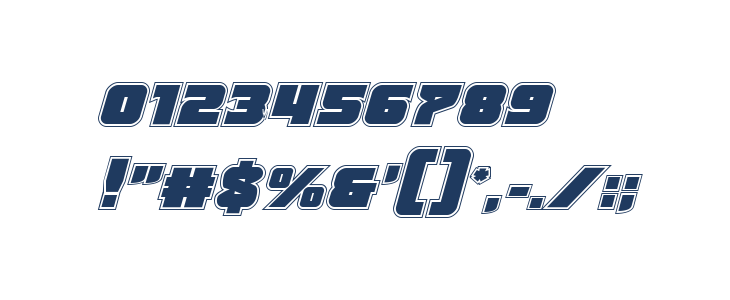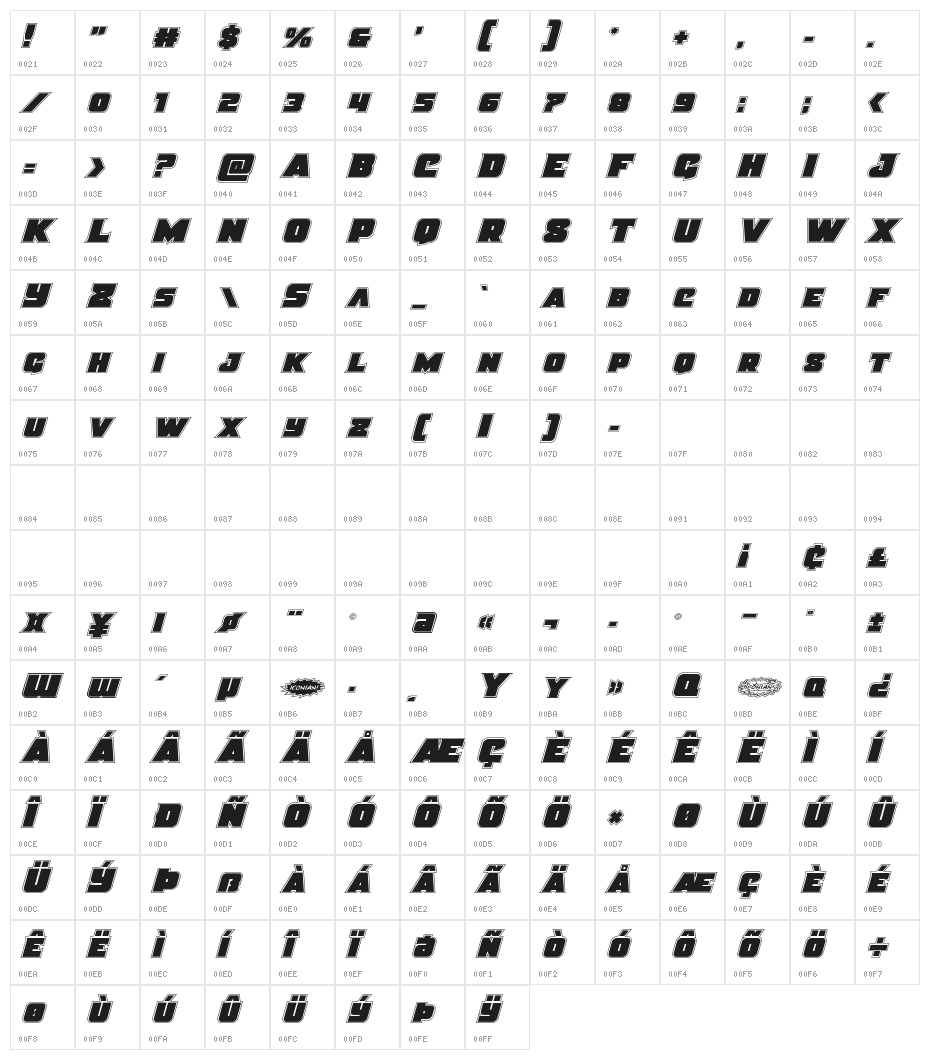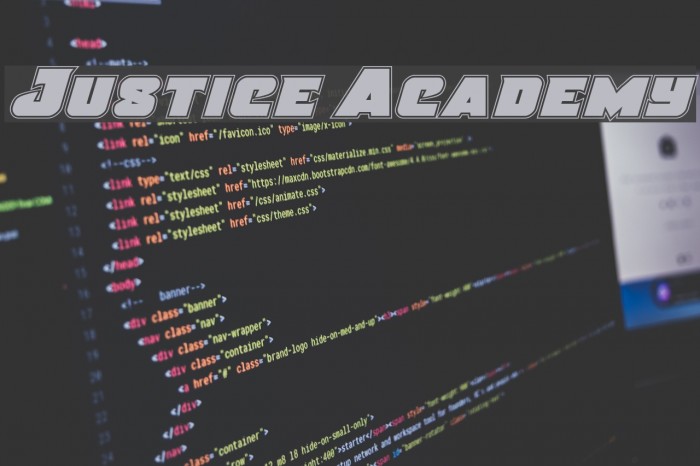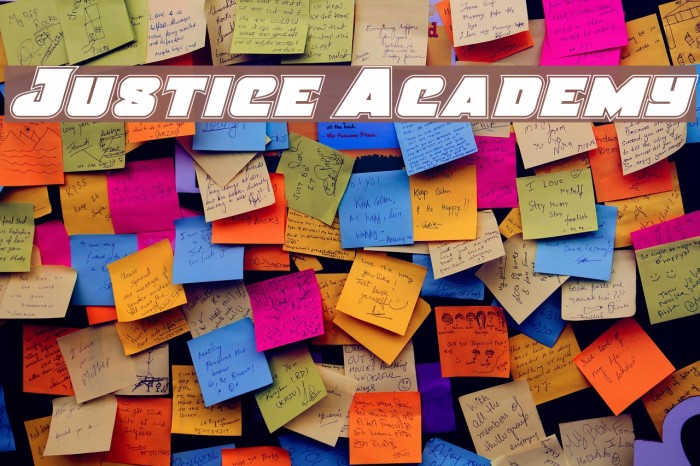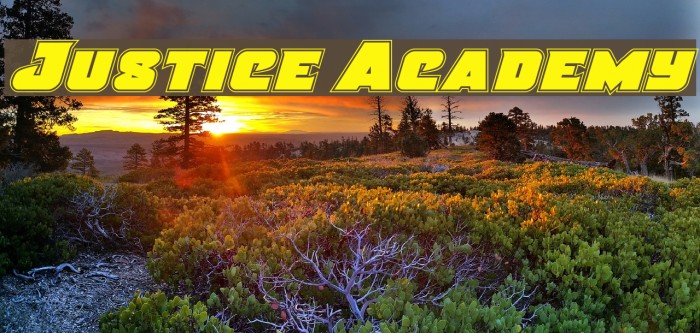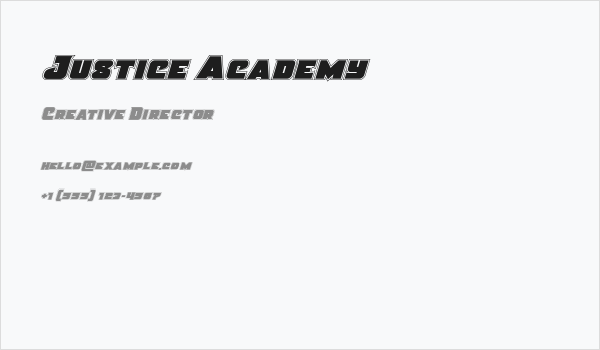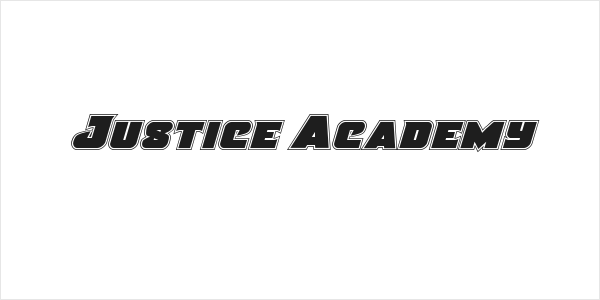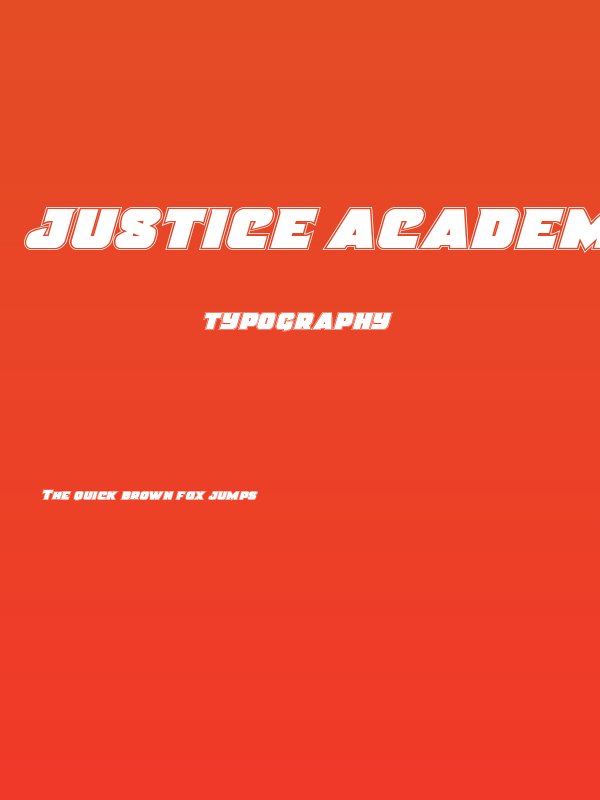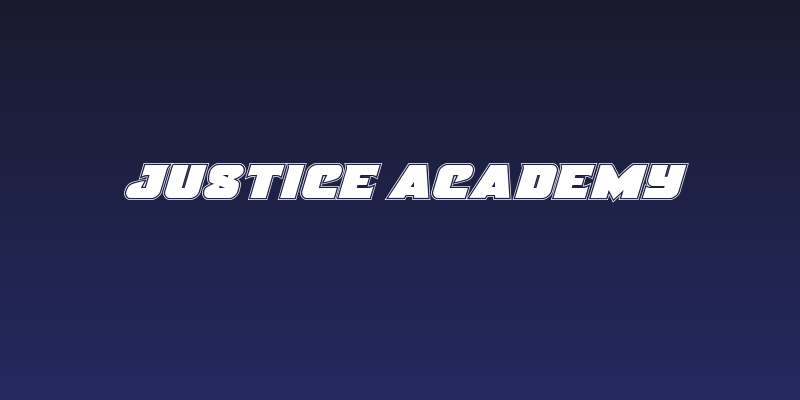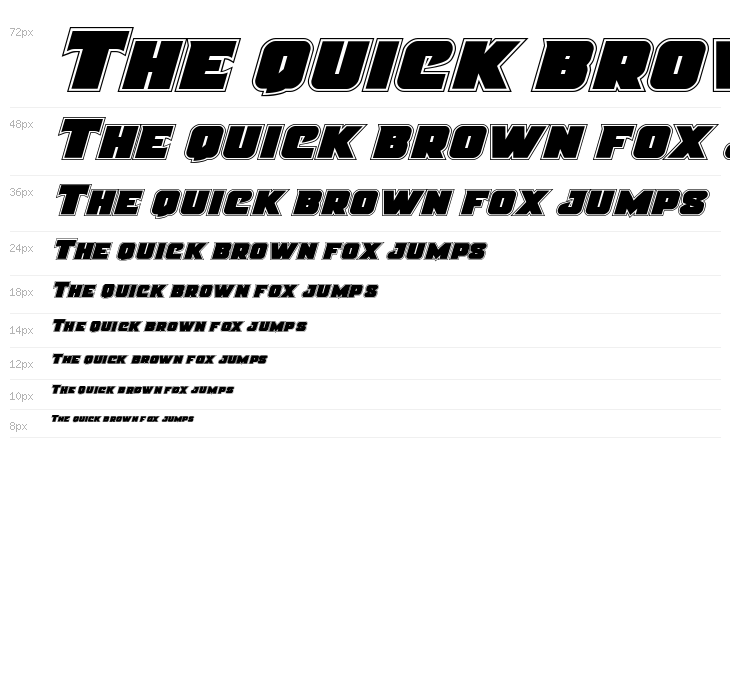
Justice Academy Font
Justice Academy Description
This bold and dynamic font features a strong, impactful design with a modern flair. The characters are designed with a thick, solid outline that adds depth and dimension, making them stand out prominently. The angular, geometric shapes of the letters convey a sense of power and energy, suitable for attention-grabbing headlines or logos. The font maintains a consistent weight throughout, ensuring uniformity and balance across all characters. Its bold presence is enhanced by the sharp edges and clean lines, which contribute to its contemporary and assertive style.
| Proposed Projects | Ideal for sports team logos, action movie posters, video game titles, or any project requiring a bold, energetic typeface. |